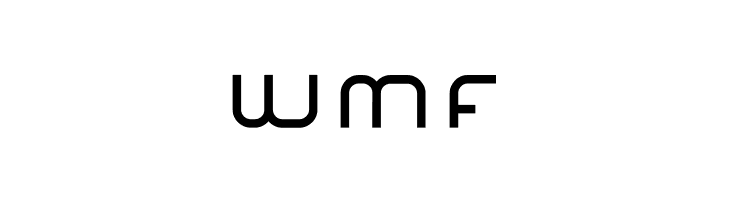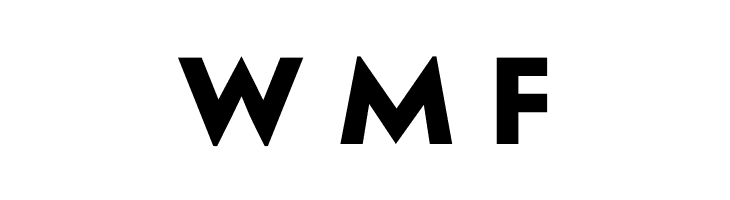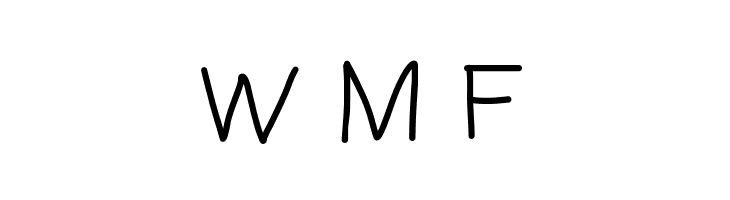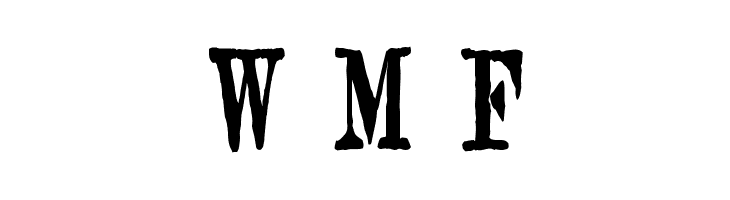
webster Font
Font by Emerald City Fontwerks
A bold, textured font with a vintage, handcrafted appearance.
Rubber Nipple Factory Black Font
A bold, geometric font with clean lines and modern appeal.
OMGWriteLikeWilliam Font
A playful, casual handwritten font with irregular strokes and a whimsical feel.
About you Font
A bold, playful font with rounded, whimsical characters.
5 grams of microplastics in a week Font
Font by junkohanhero
A bold, distressed font with a vintage, boxed style.
Galactic Font
memesbruh03 - Aaron D. Chand
A bold, geometric font with a futuristic, digital aesthetic.